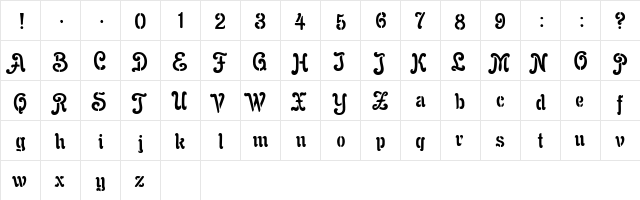
Shamcil 001
Design Context for Shamcil Typeface
Shamcil is a composed and adaptable typeface that performs quietly and consistently across a wide range of design contexts.